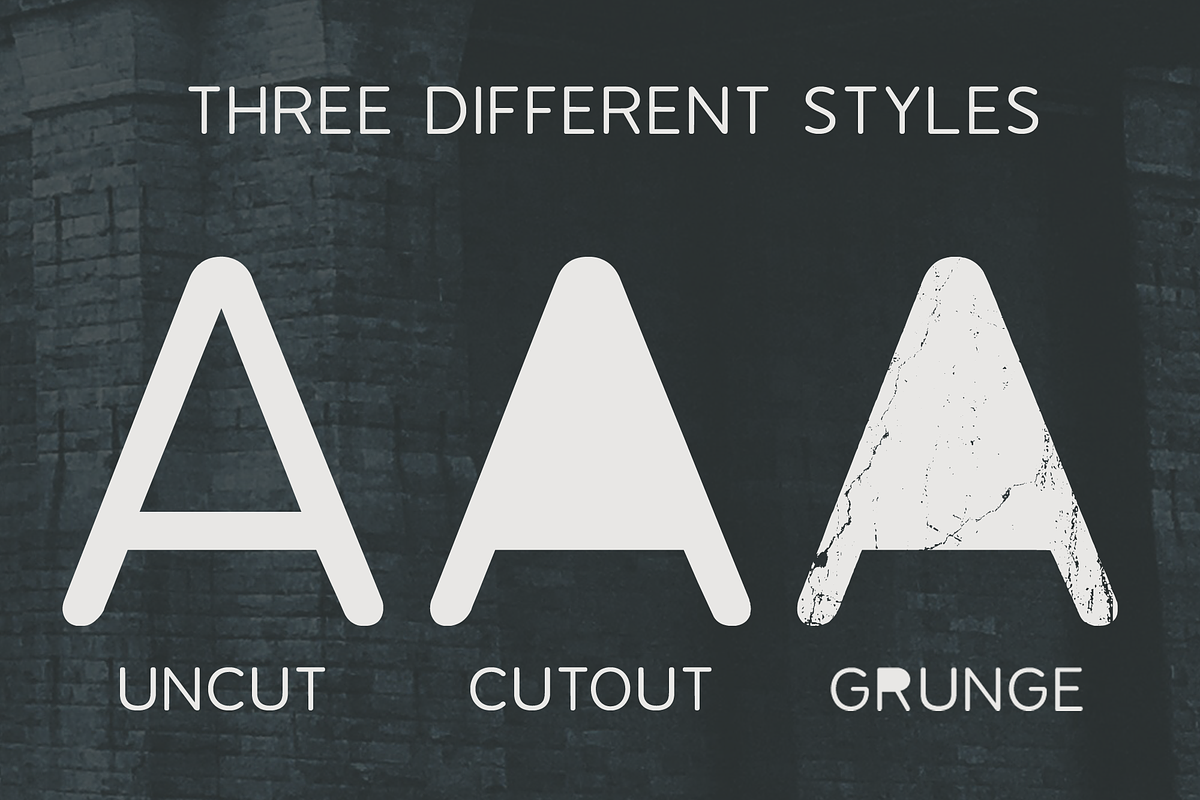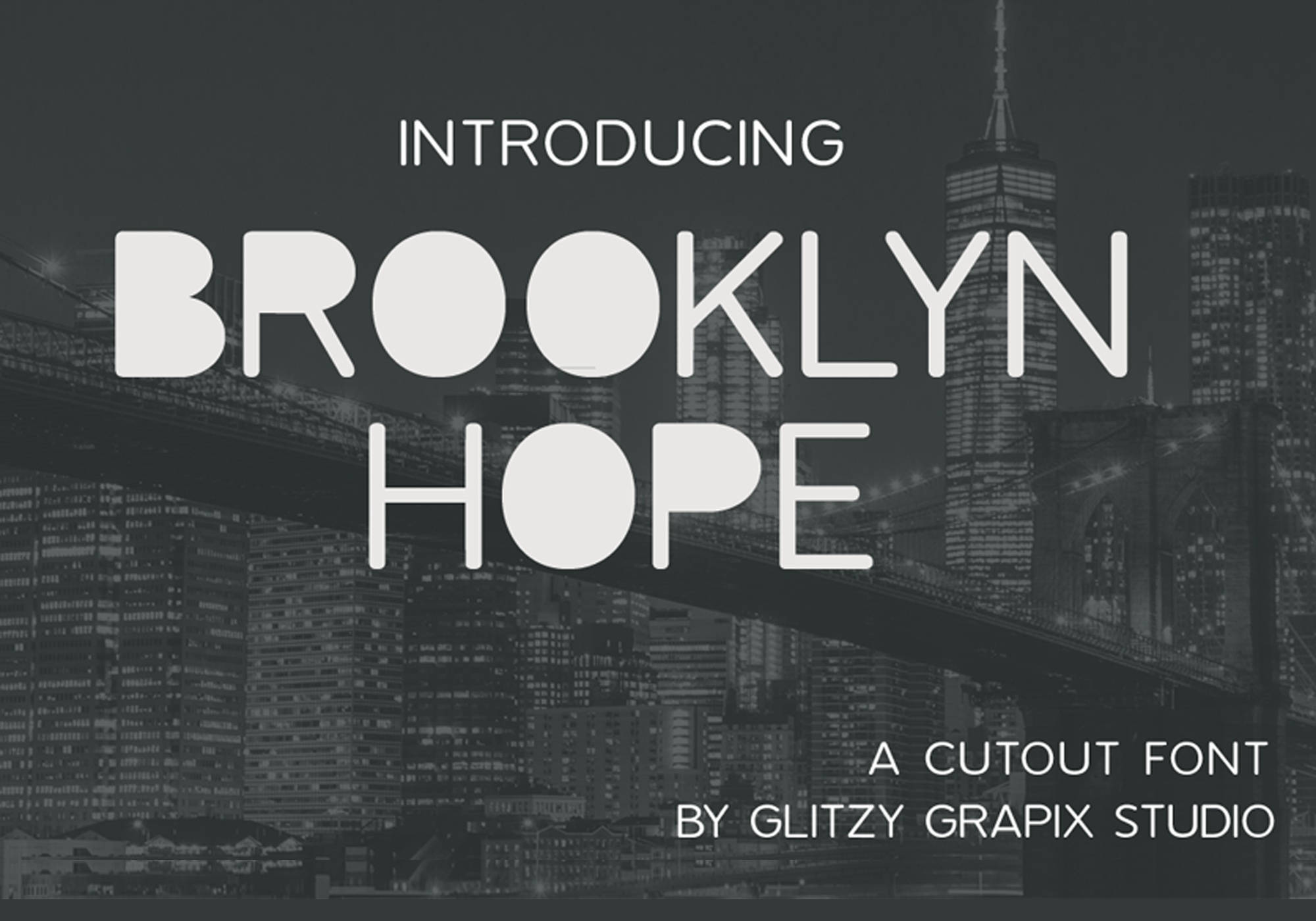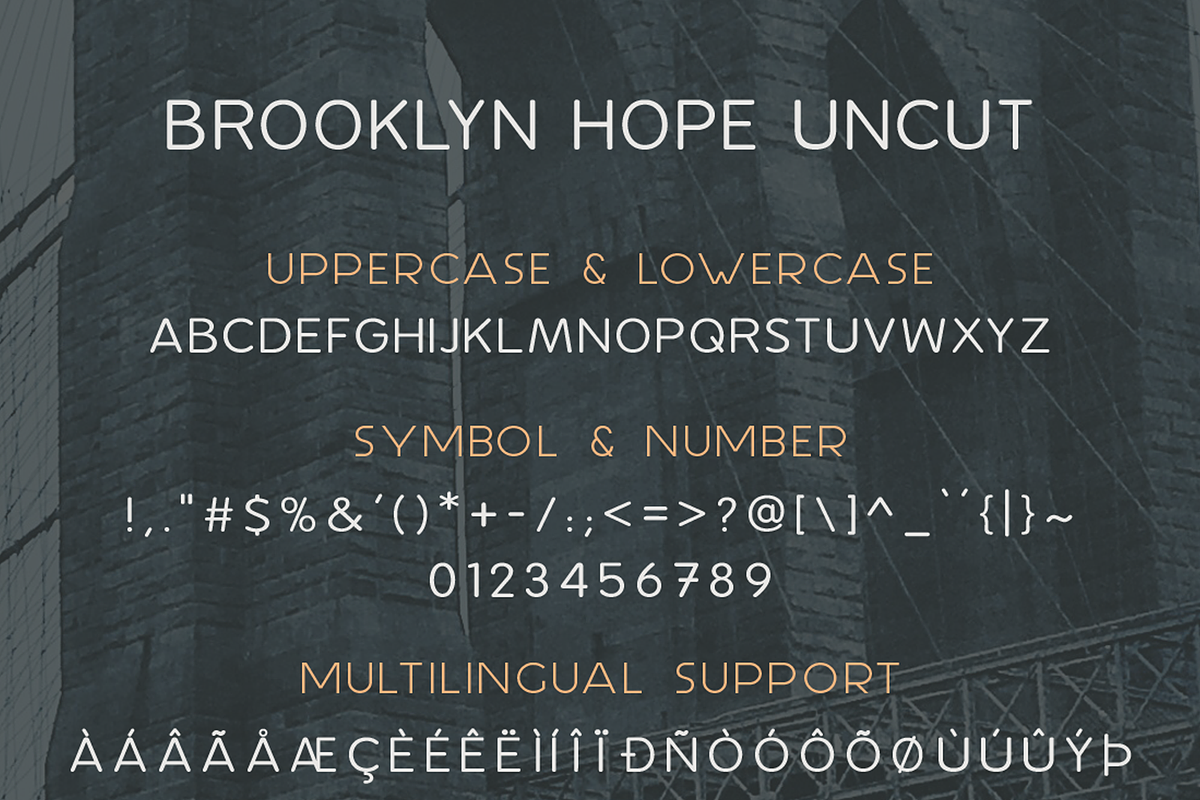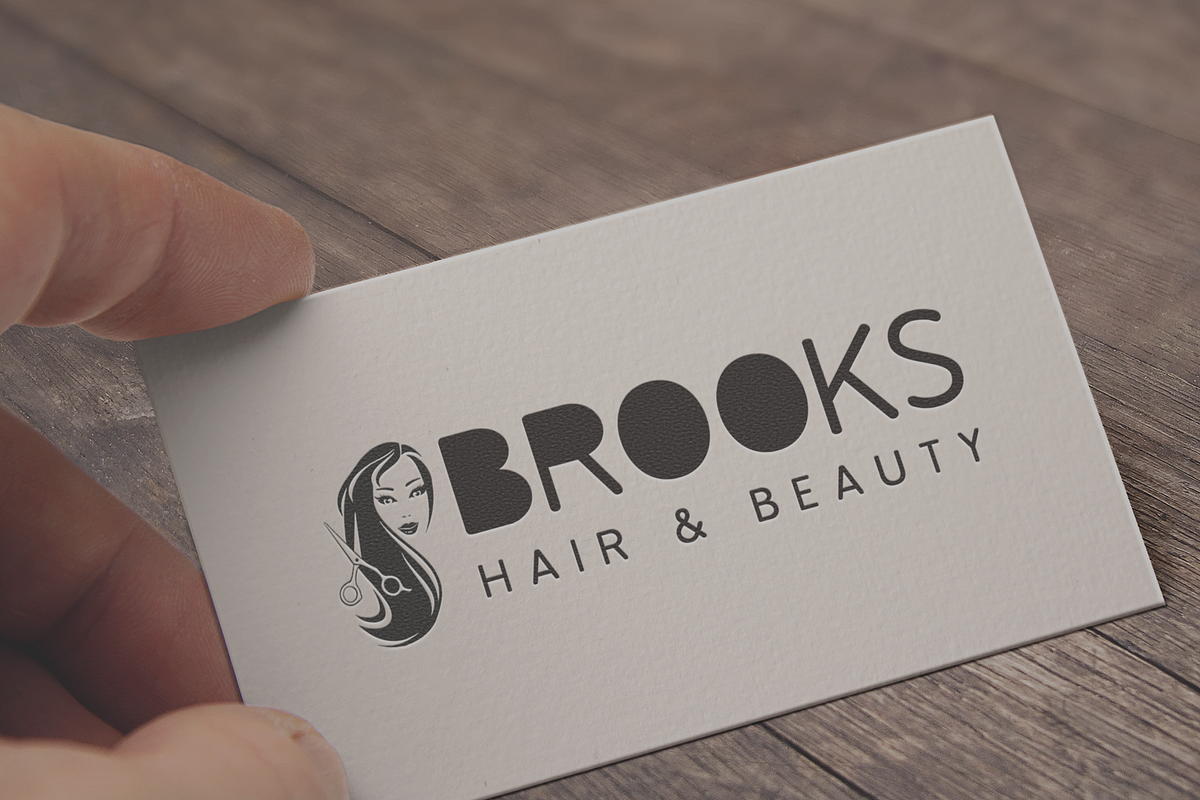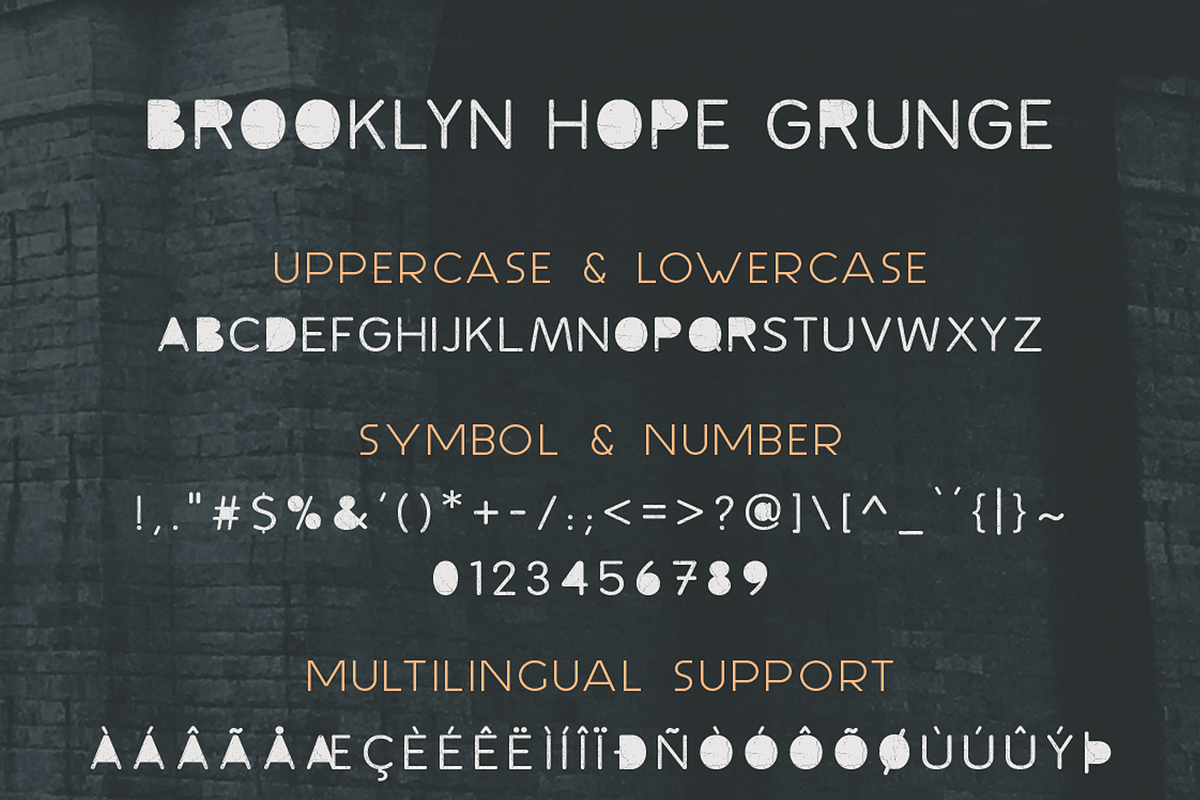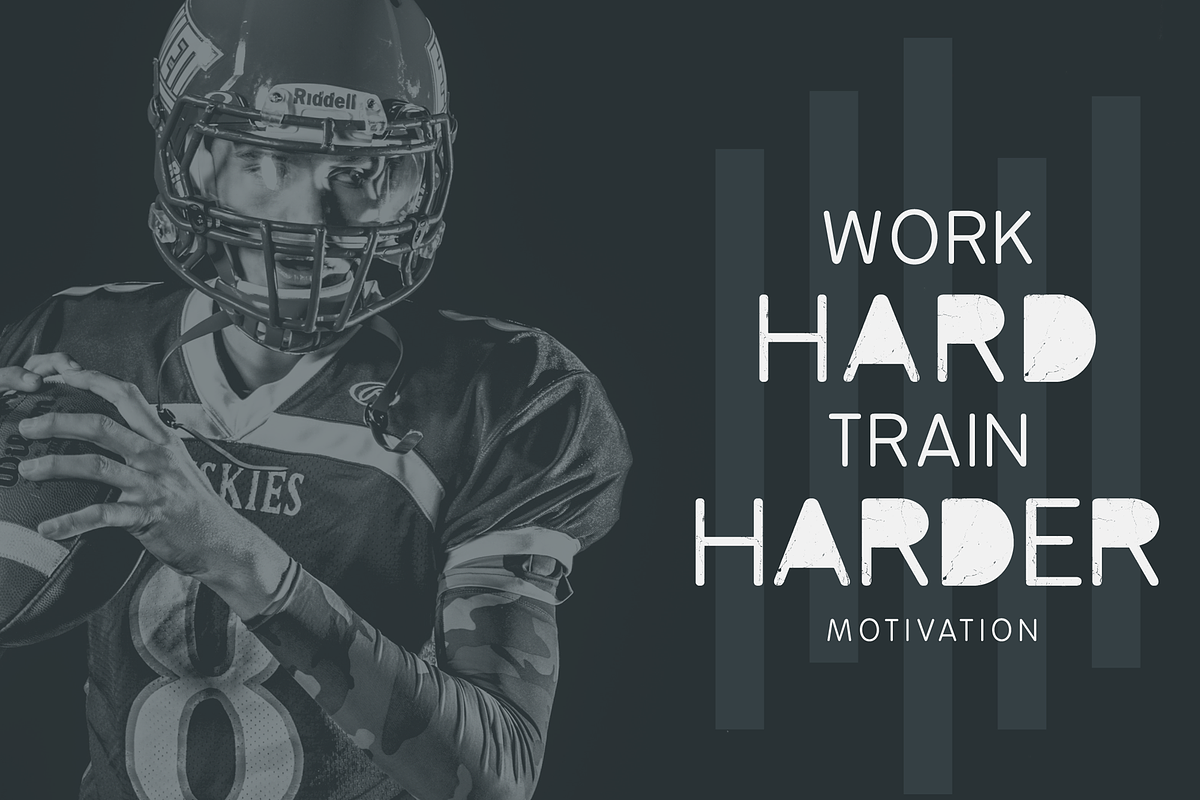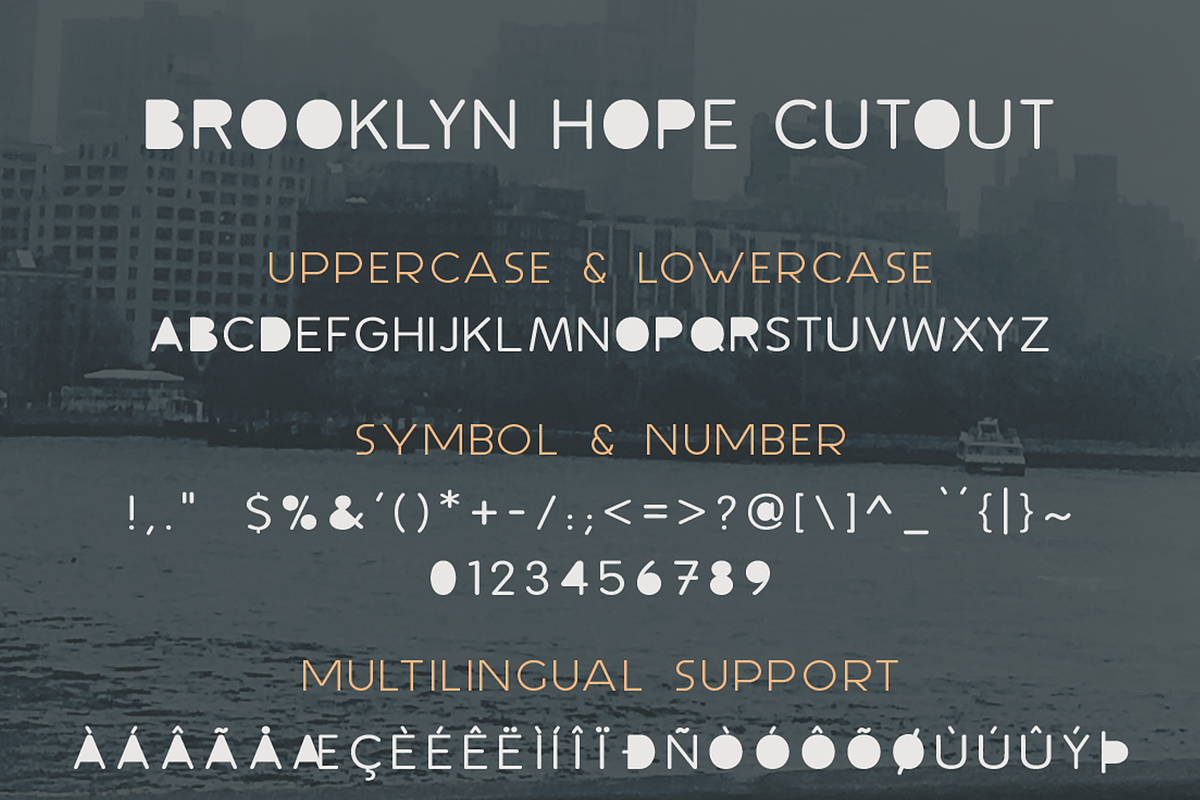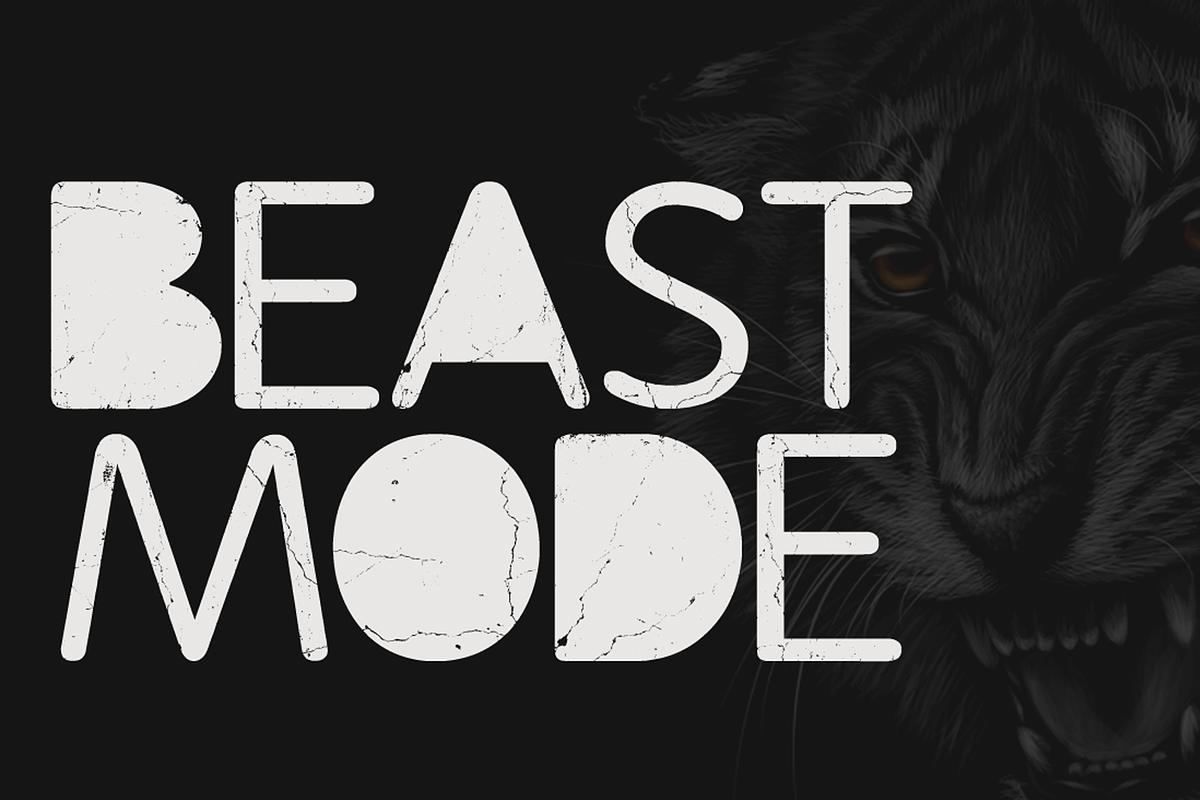
Brooklyn Hope Cutout Font
Brooklyn Hope is available in 3 different styles. (Cutout, Uncut & Grunge)
Brooklyn Cutout font is an all caps cutout-style font that gives an instant cutout label font effect to your projects.
Brooklyn Uncut font is a regular all caps font.
Brooklyn Cutout Grunge font brings a unique and grunge style to your design.
Great for logos, labels, cards, quotes, social media posts, t-shirts, posters, branding, and so much more!